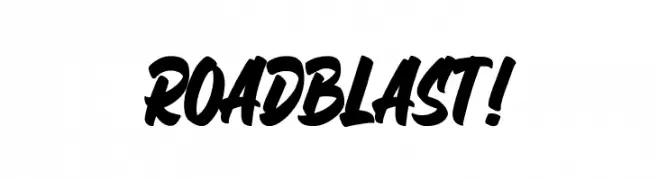
A bold, geometric font with a futuristic and industrial style.
A bold, italic font with angular lines and diagonal stripes, exuding a futuristic and dynamic style.
A bold, dynamic script font with sweeping strokes and fluid connections.
A flowing, cursive script font with elegant loops and a modern appeal.
A dynamic, cursive script font with expressive, flowing strokes.
A fluid, cursive font with elegant, sweeping strokes and dynamic contrast.
A bold, playful font with a hand-drawn, whimsical style.
A bold, rounded font with a playful and modern style.
A distressed, textured font with a vintage, rugged appearance.
A dynamic cursive script font with elegant, flowing strokes.